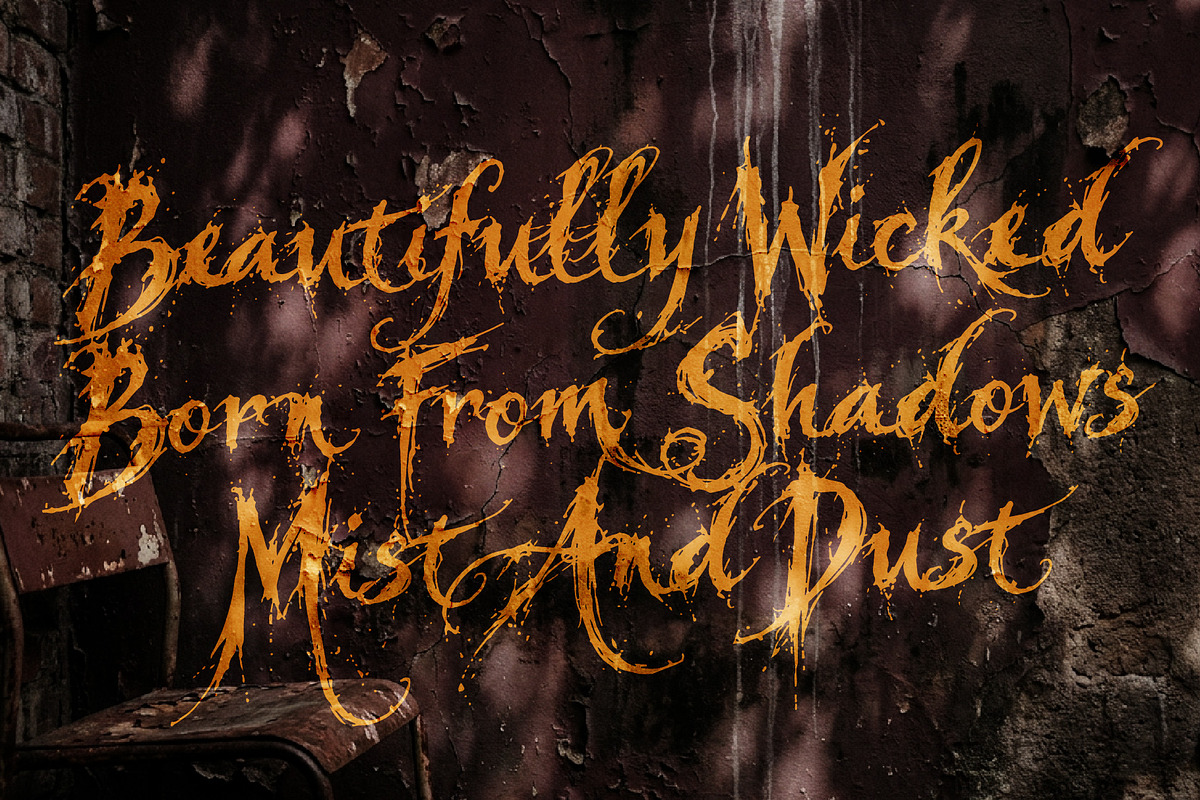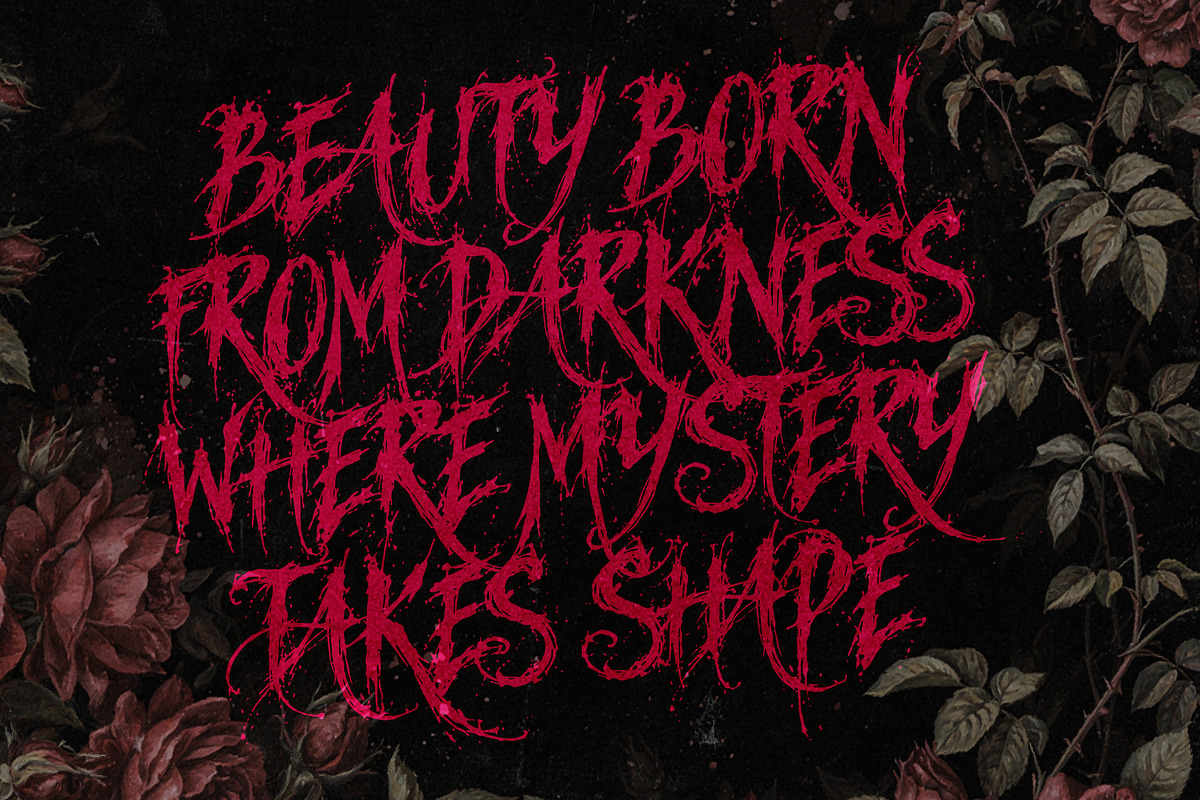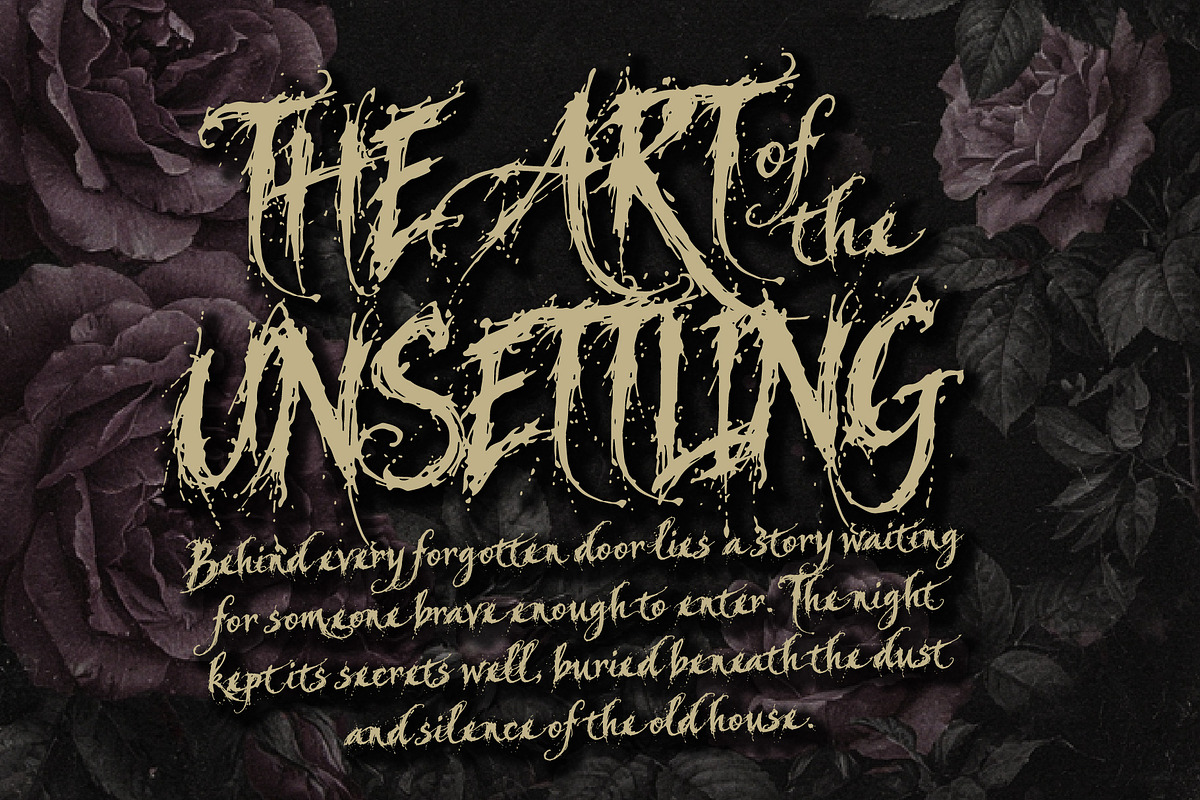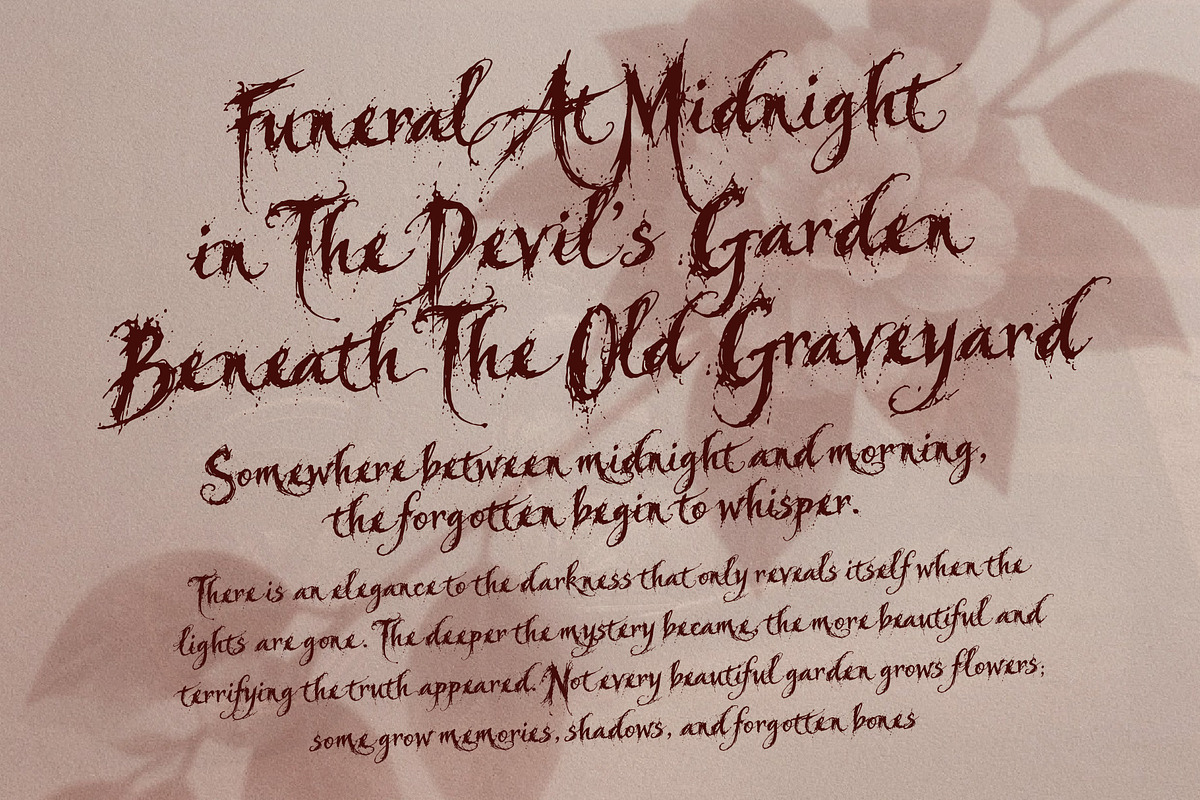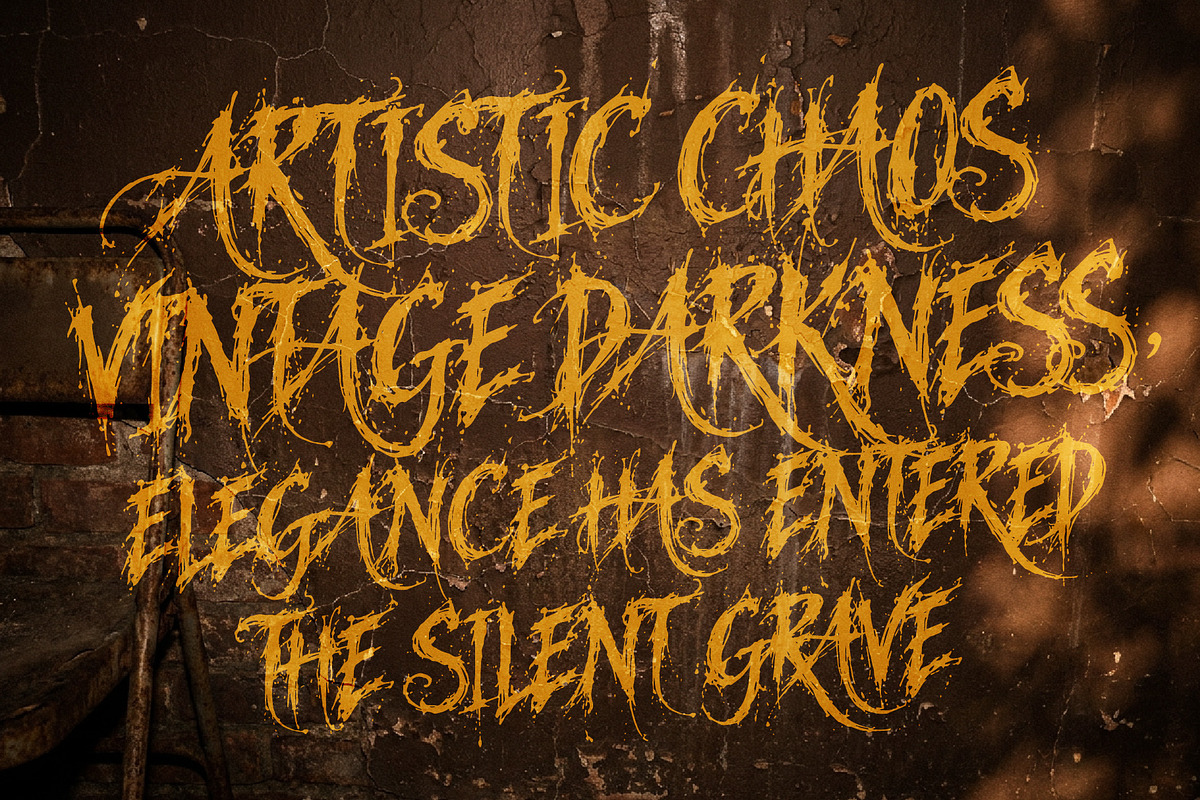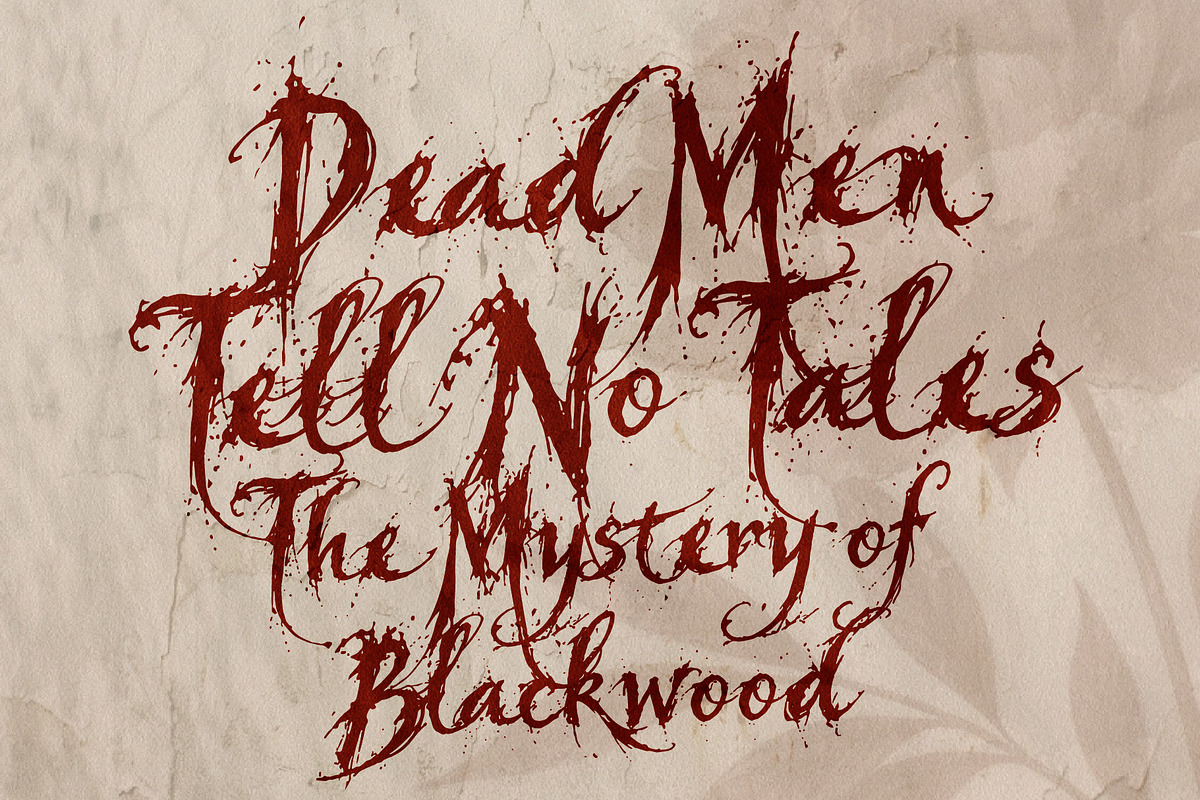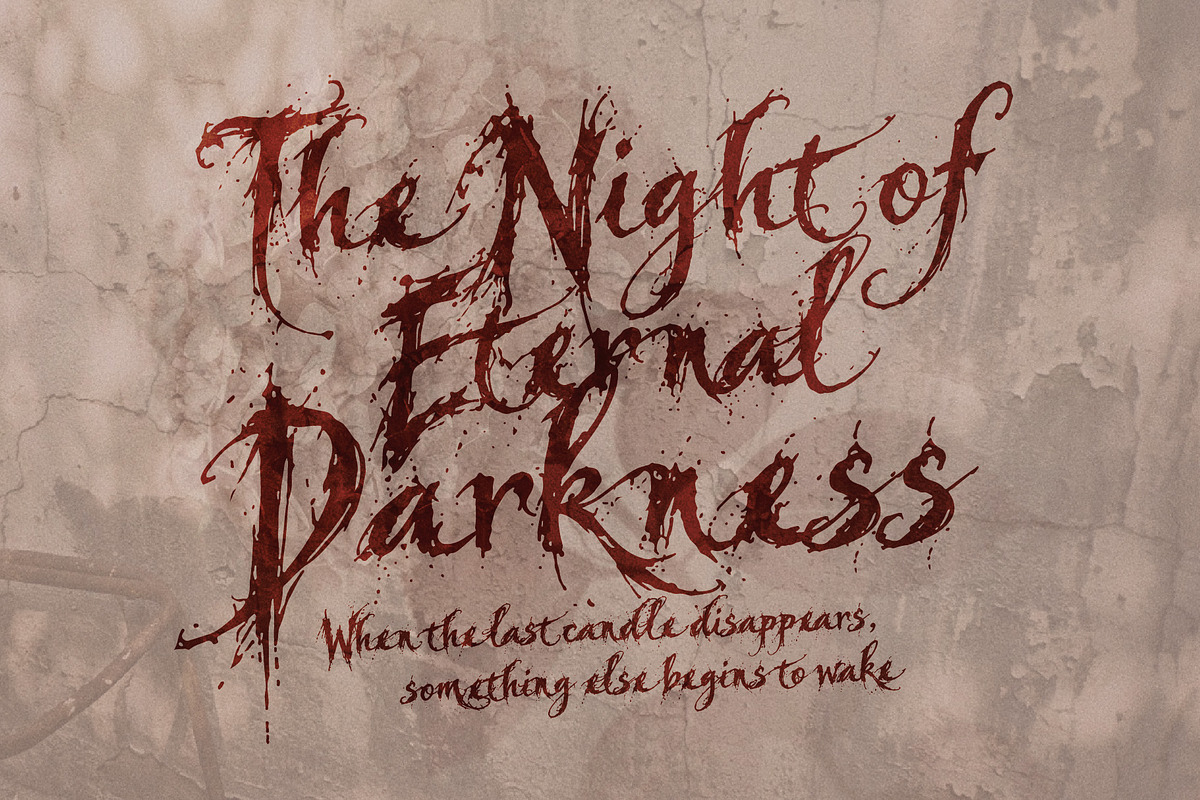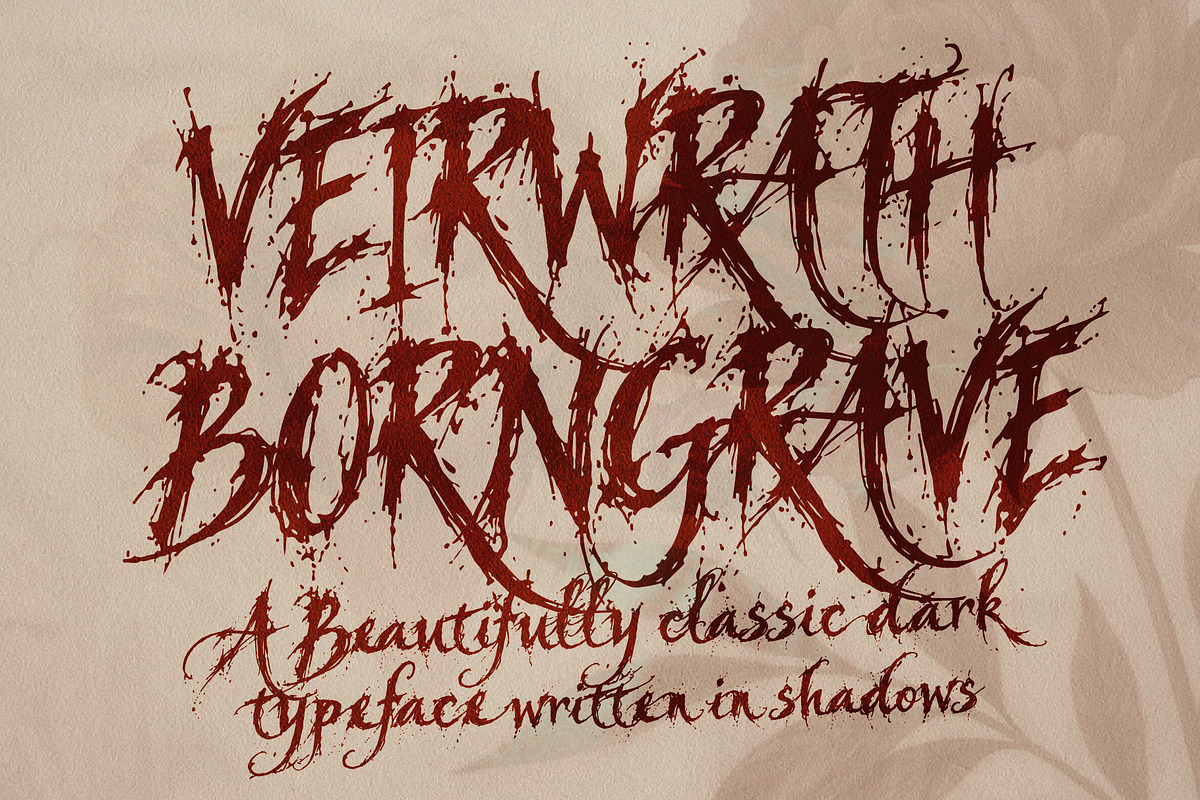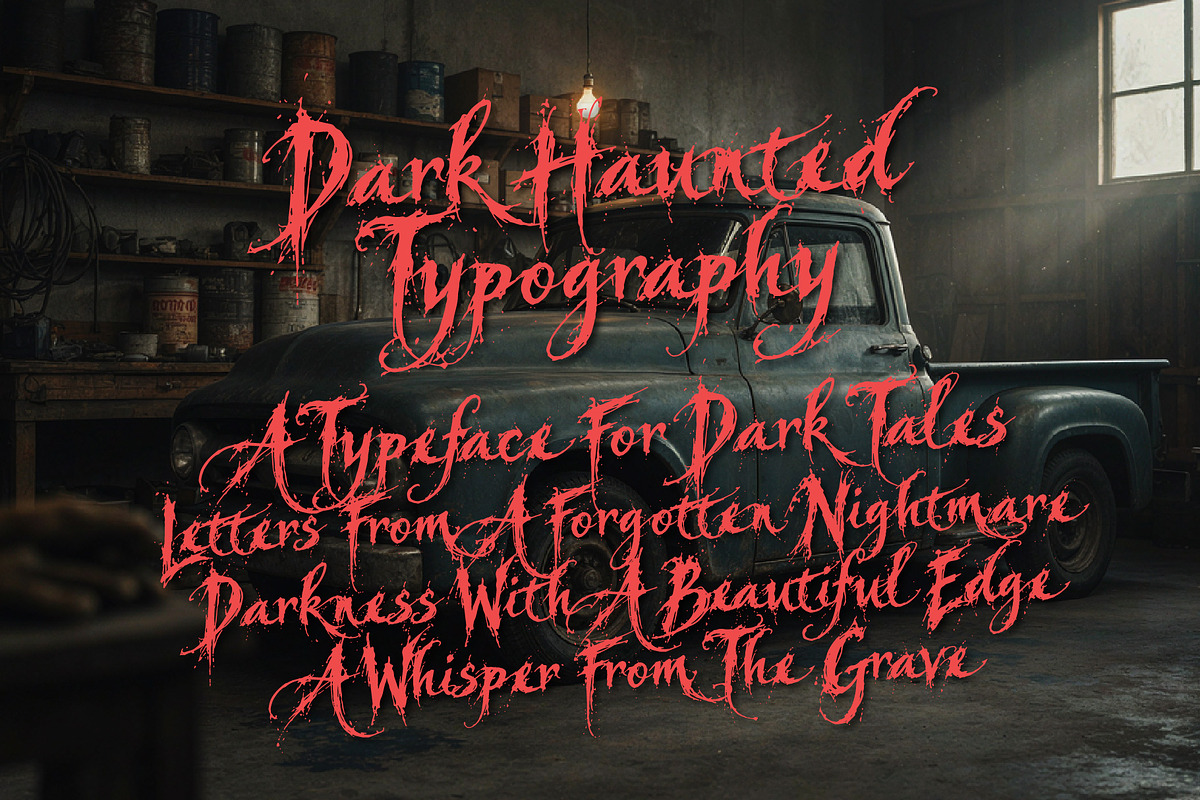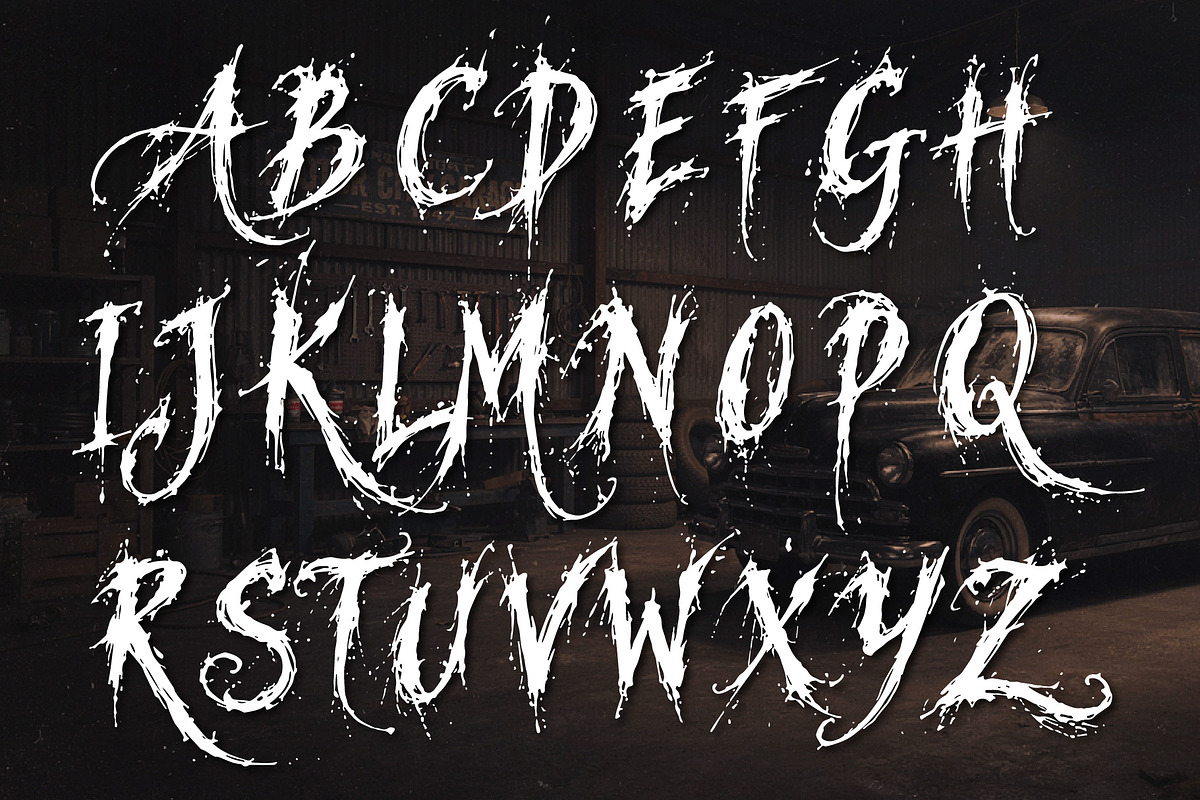
Veirwrath Borngrave - Haunted Beauty
Veirwrath Borngrave is a grunge horror brush font where dark chaos meets vintage beauty. Its rough, expressive strokes, distressed texture, dramatic swashes, and artistic details create a mysterious character that feels both sinister and beautifully crafted.
Inspired by classic horror posters, forgotten mysteries, vintage death metal artwork, haunted tales, and old cinematic thrillers, Veirwrath Borngrave brings an aged, dramatic atmosphere to every word. Its handcrafted imperfections give the lettering a raw personality while the elegant swashes add a striking artistic touch.
Perfect for horror and Halloween posters, thriller titles, death metal artwork, dark album covers, mysterious book covers, haunted house graphics, vintage merchandise, occult-inspired artwork, tattoo designs, and cinematic branding. Use it when you want your typography to feel dark, dramatic, mysterious, and unforgettable.